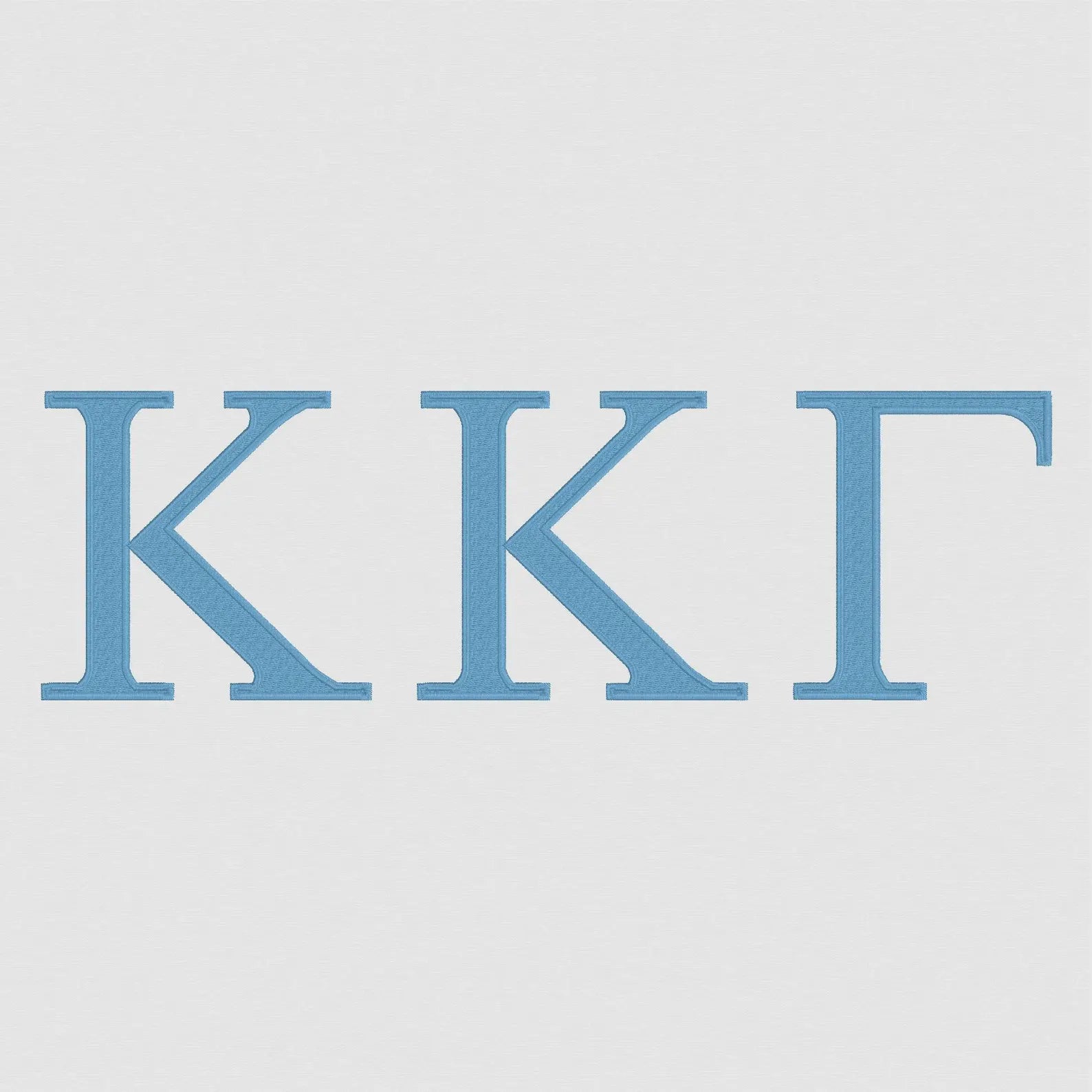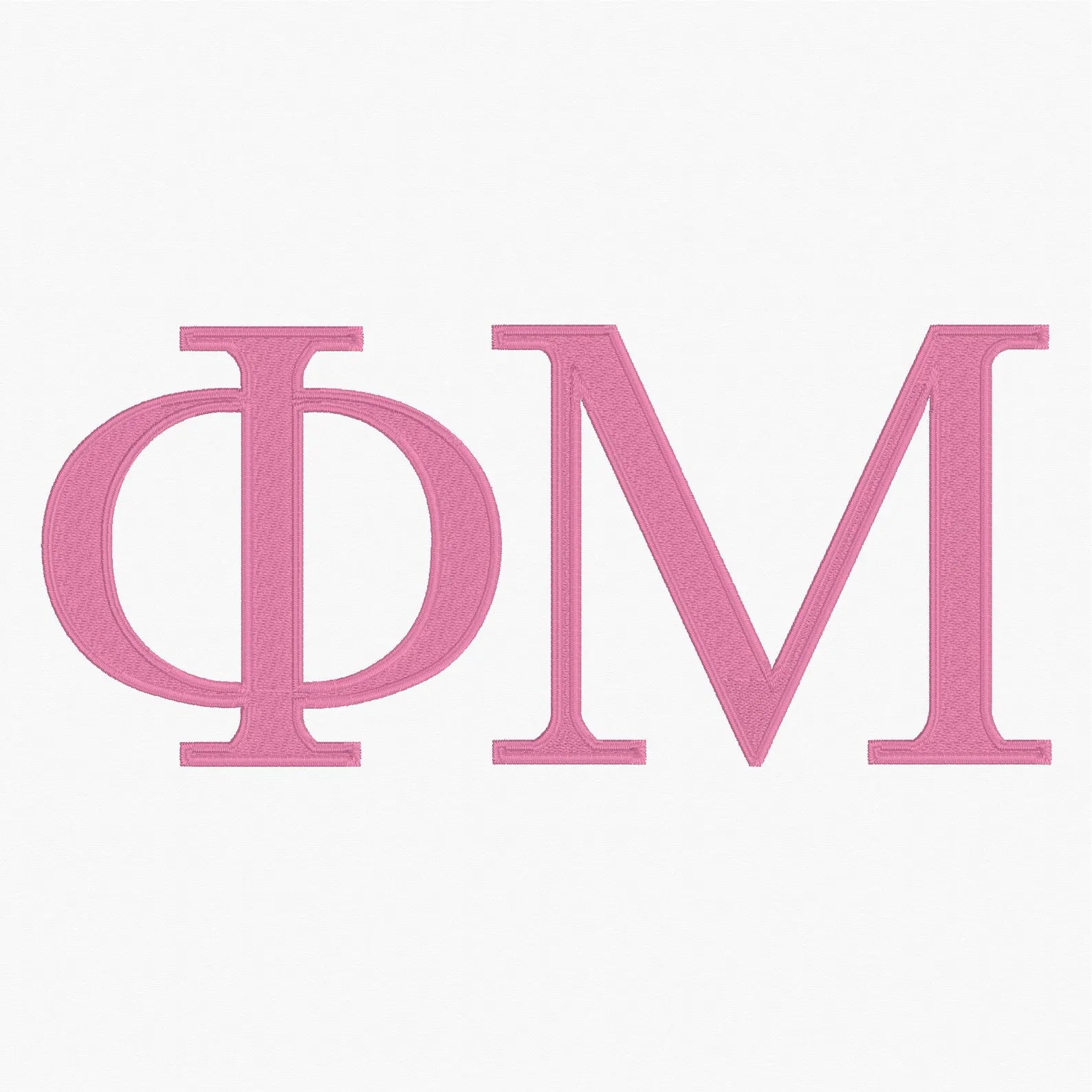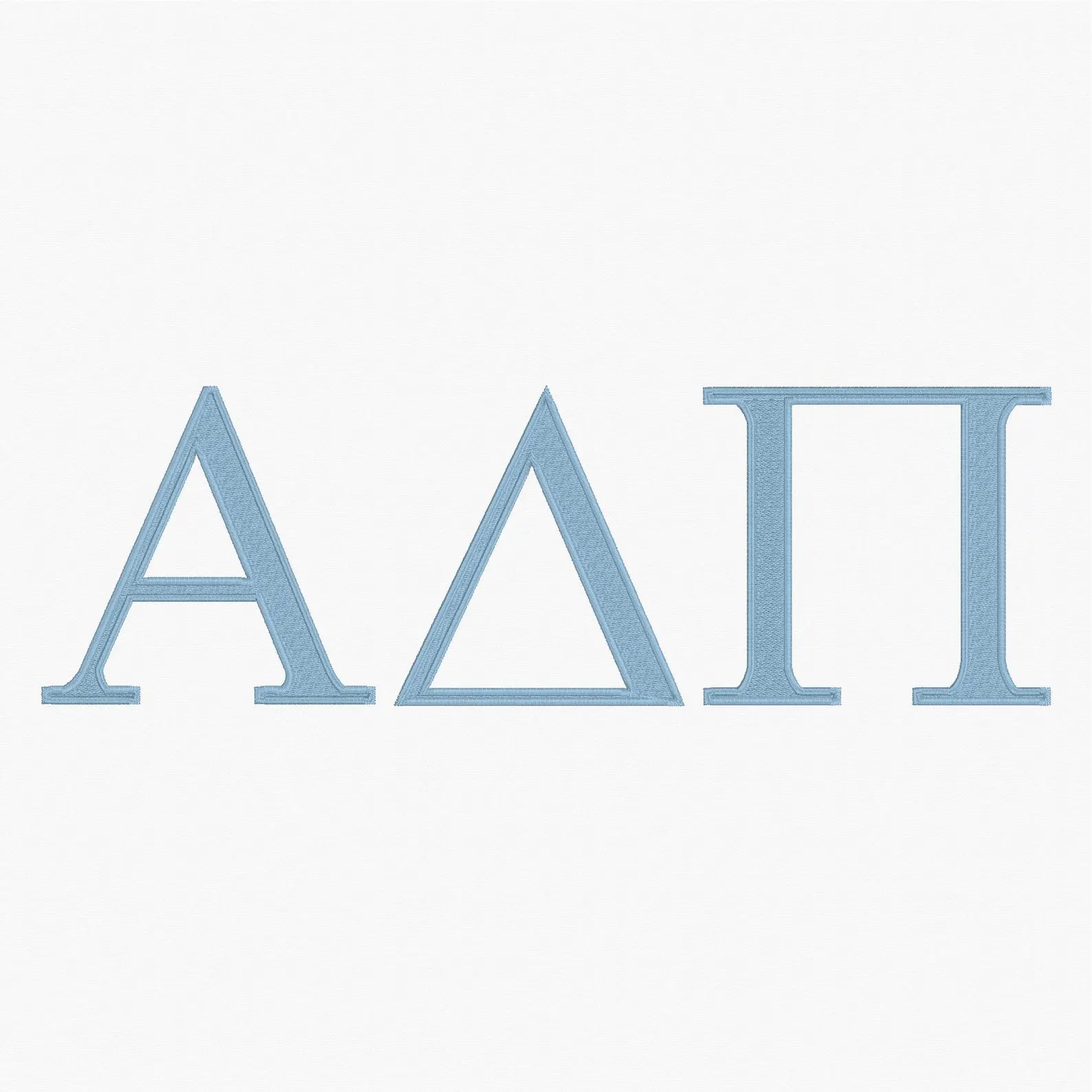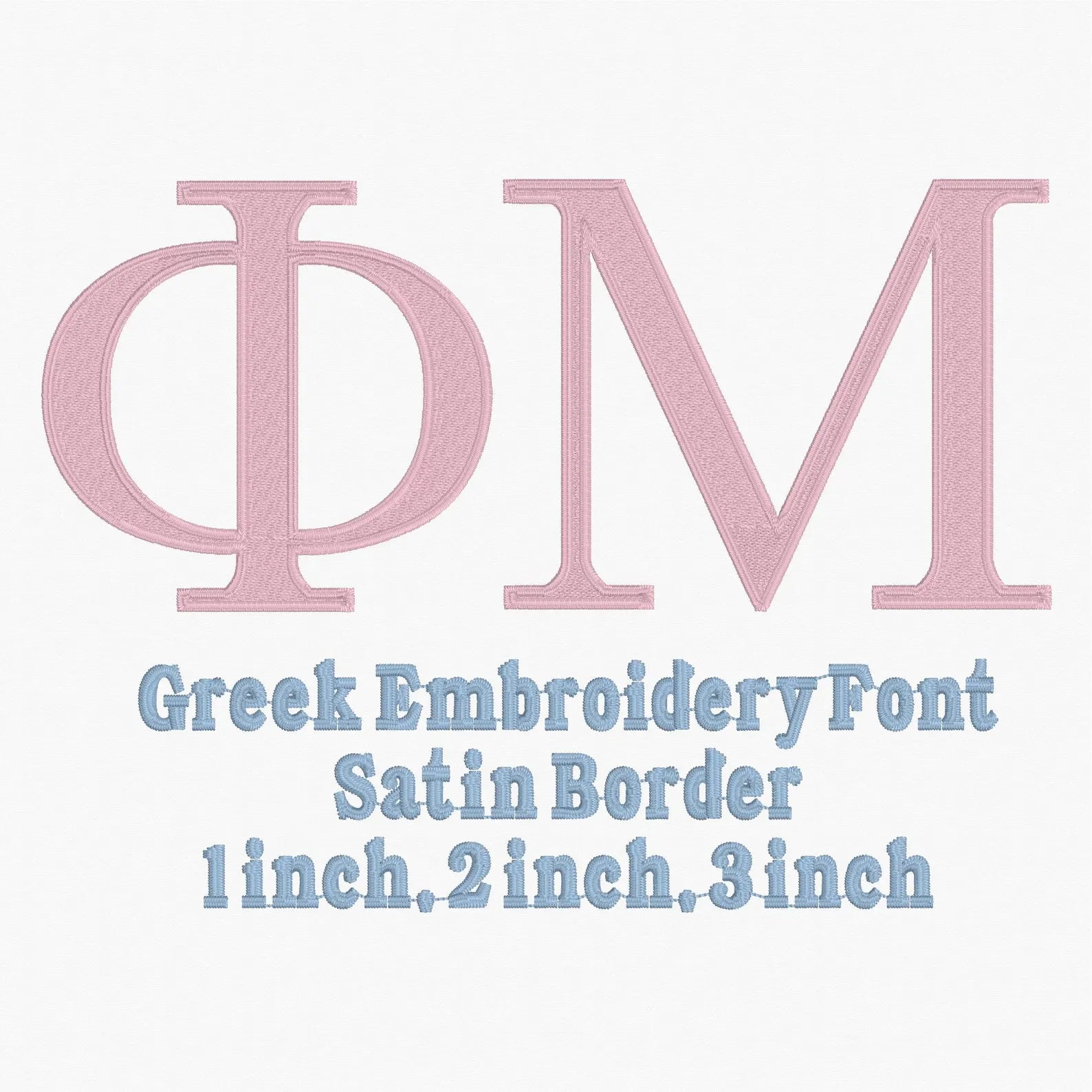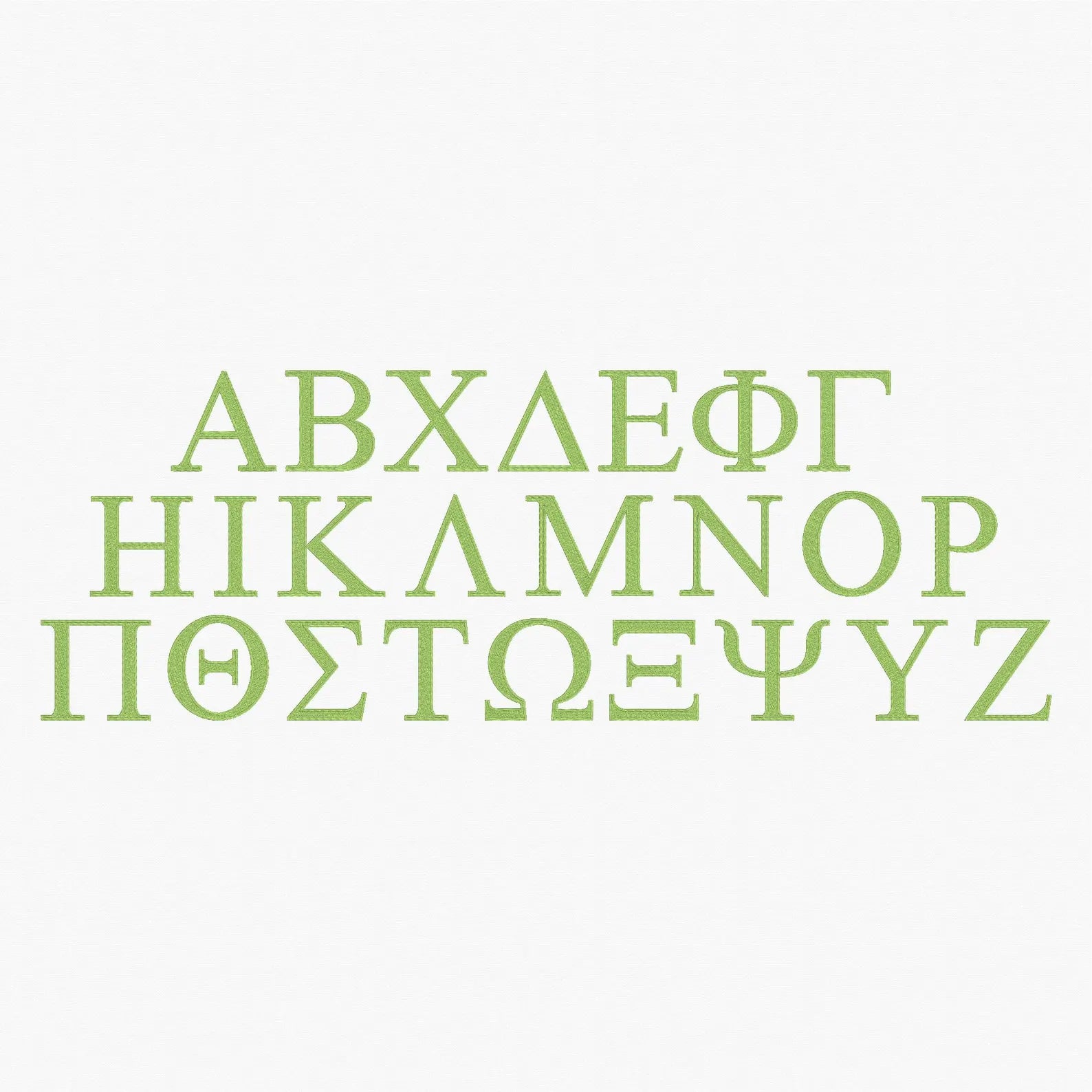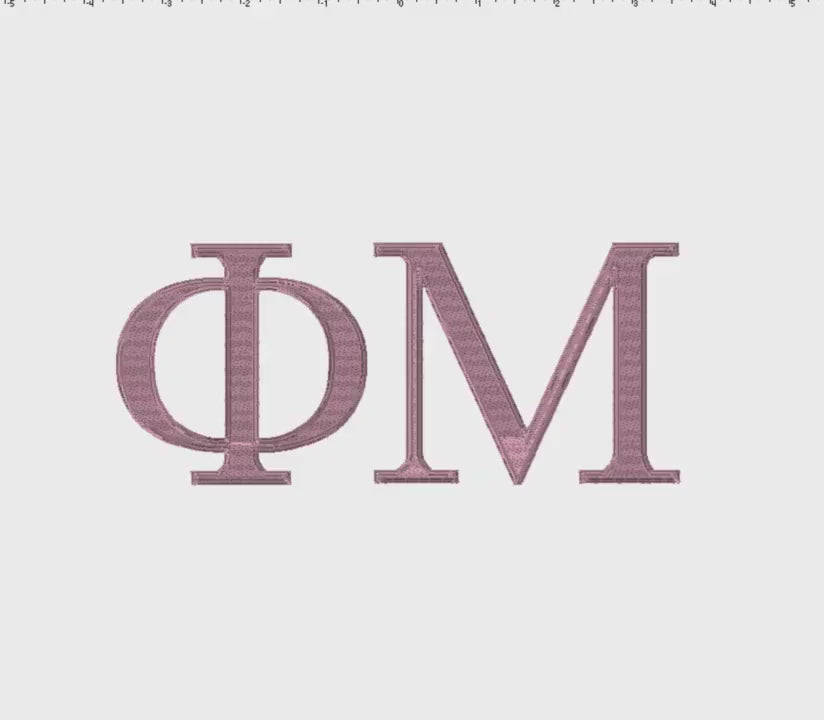
Greek Embroidery Font: 3 Sizes, 9 Stitch Formats + bx
Greek Embroidery Font: 3 Sizes, 3" has Satin Outline, 1" & 2" are Solid Satin 9 Stitch Formats
1", 2", 3"